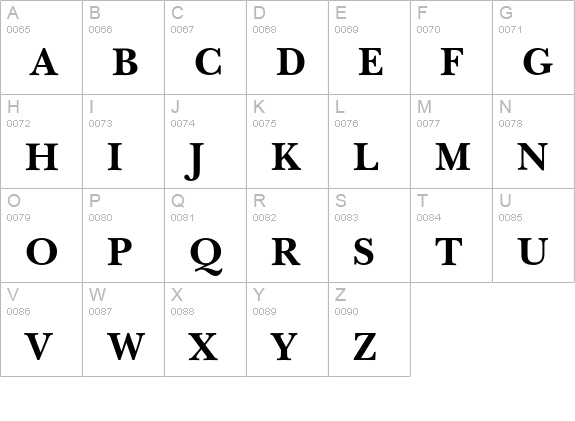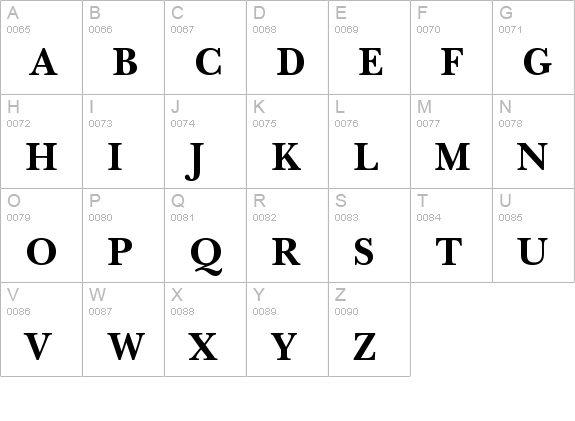
NewBaskervilleEF-Bold is a strong, high-contrast variant in the NewBaskervilleEF typeface family \xE2\x80\x94 well suited to headlines, attention-grabbing titles, and strong calls-to-action.
NewBaskervilleEF-Bold is a timeless and elegant font that exudes sophistication and class. Its bold weight commands attention and makes a strong statement in any design project. With its clean lines and classic serif style, NewBaskervilleEF-Bold is perfect for adding a touch of refinement to your print or digital creations. The best part is that NewBaskervilleEF-Bold is free to download at FontsMarket.com. This means you can easily access this premium font without any cost, making it a valuable addition to your font library. Whether you're working on a professional document, a creative project, or a personal design, NewBaskervilleEF-Bold is sure to elevate your work with its distinctive and authoritative presence. Download it today and take your typography to the next level!